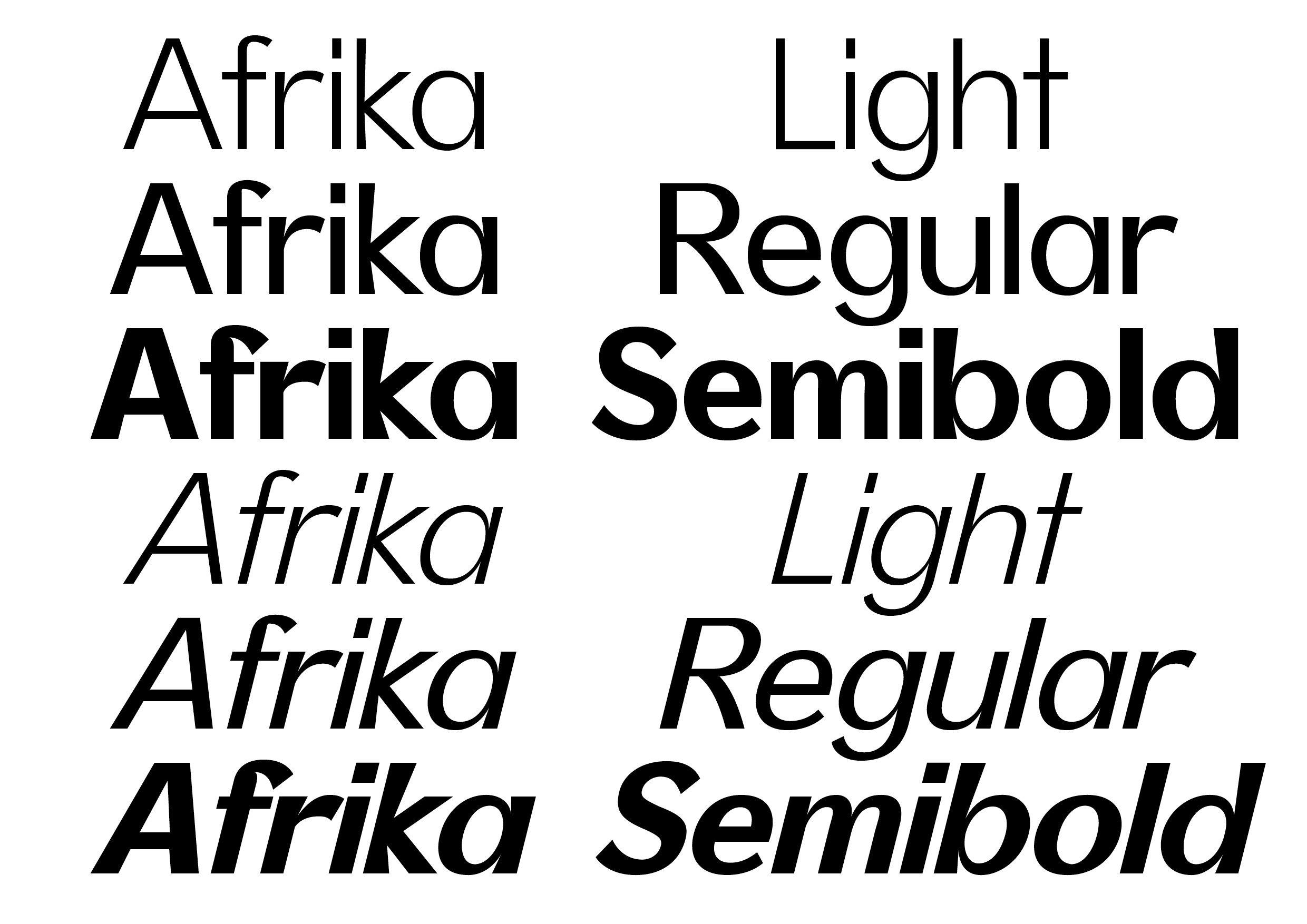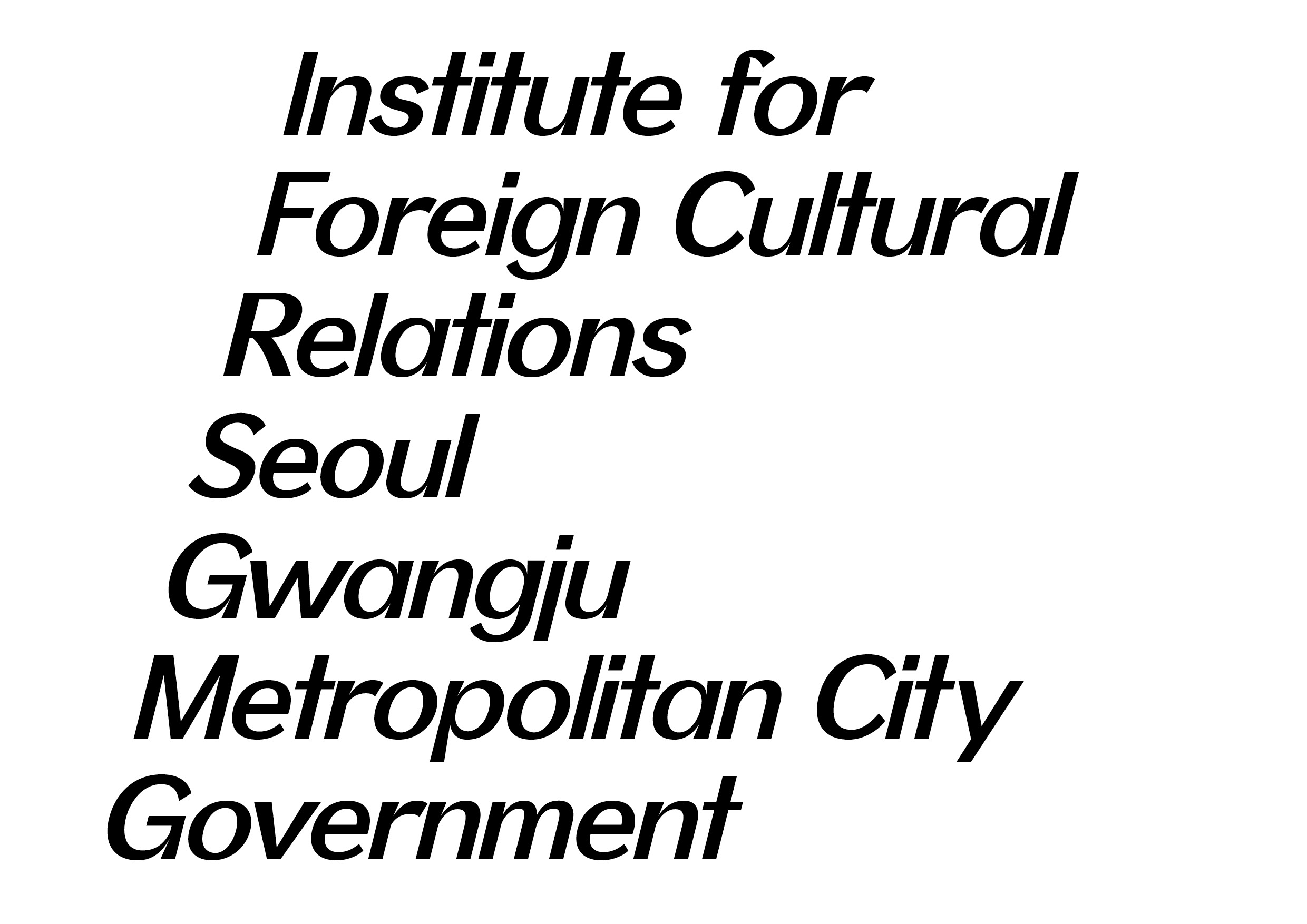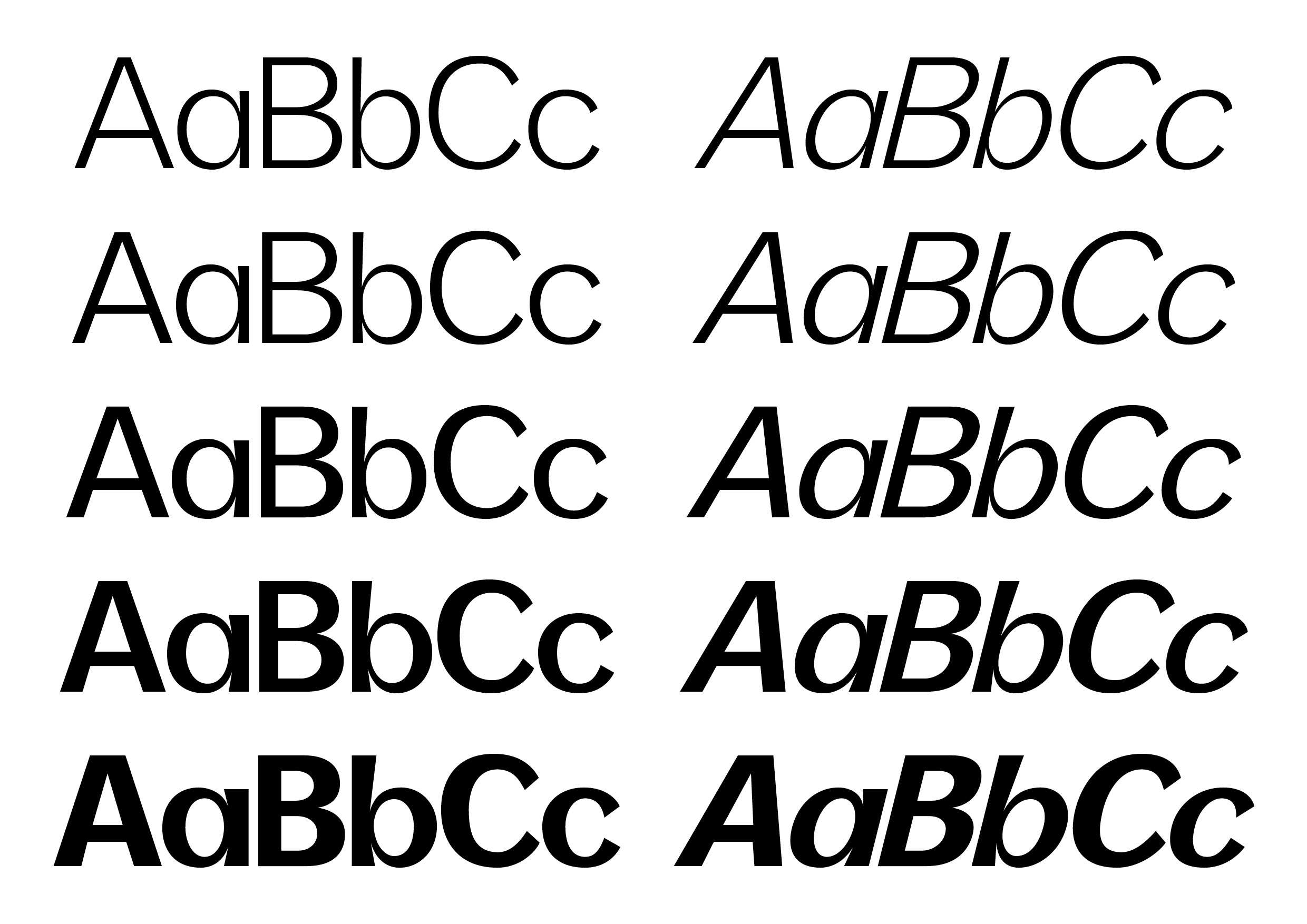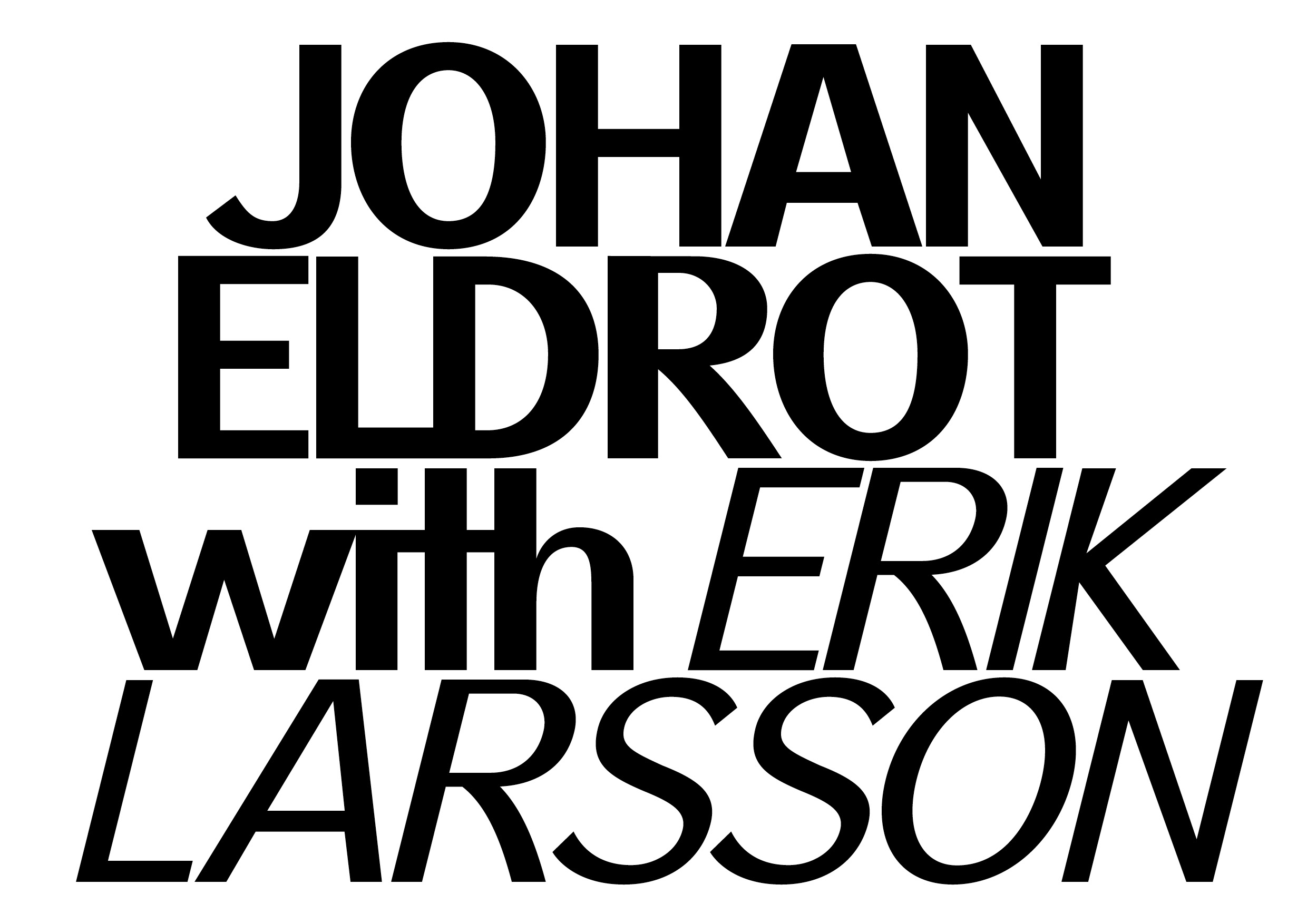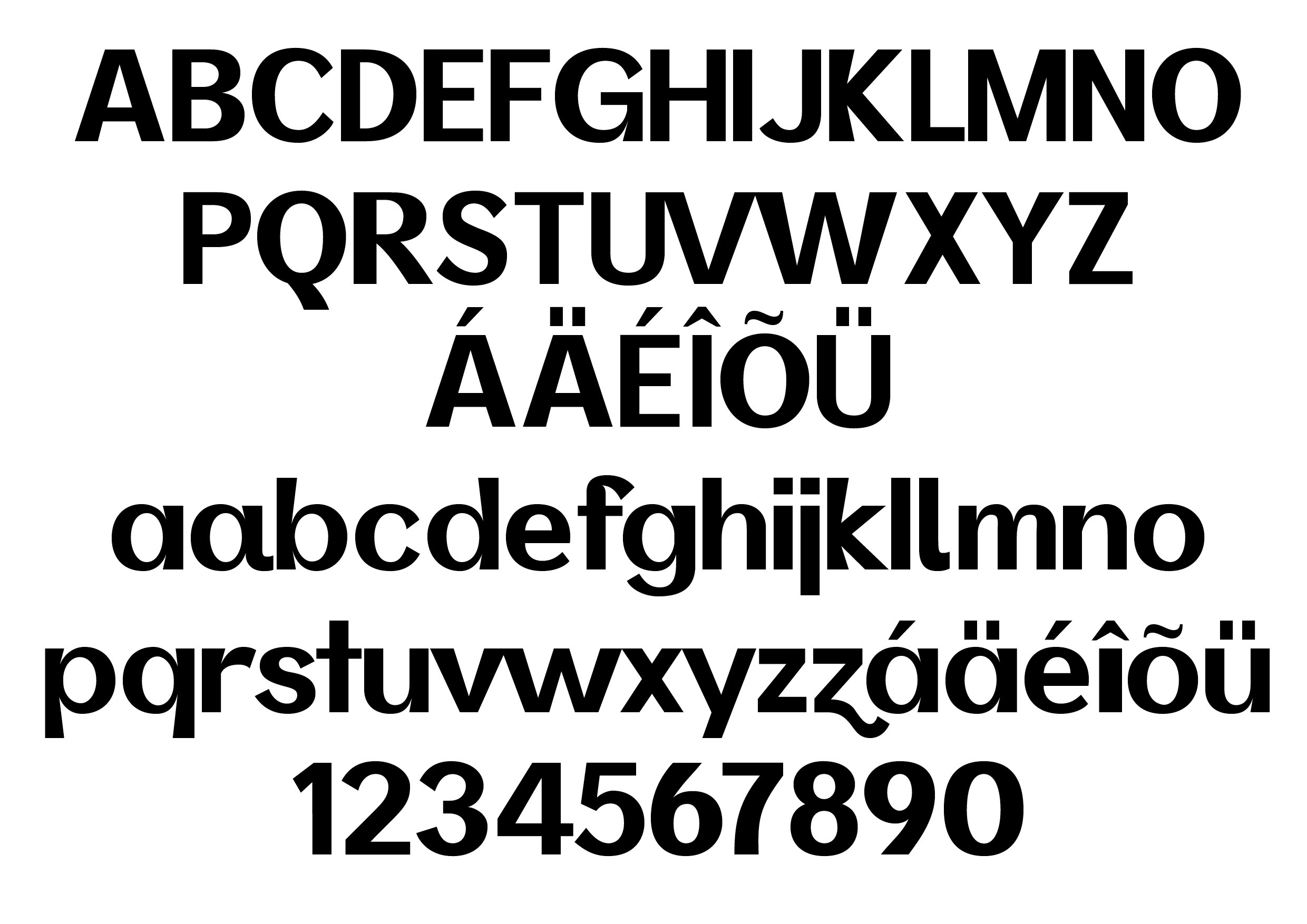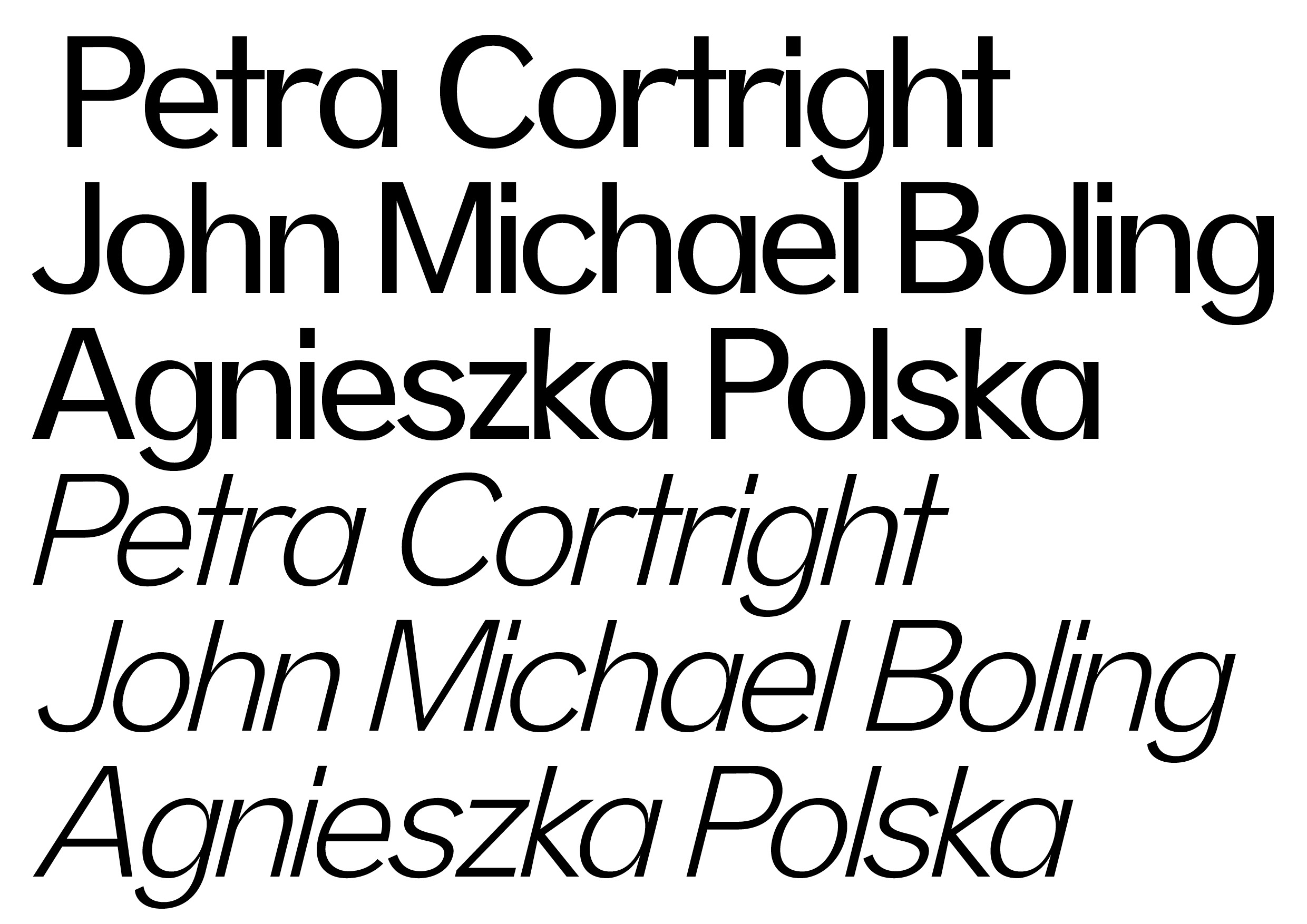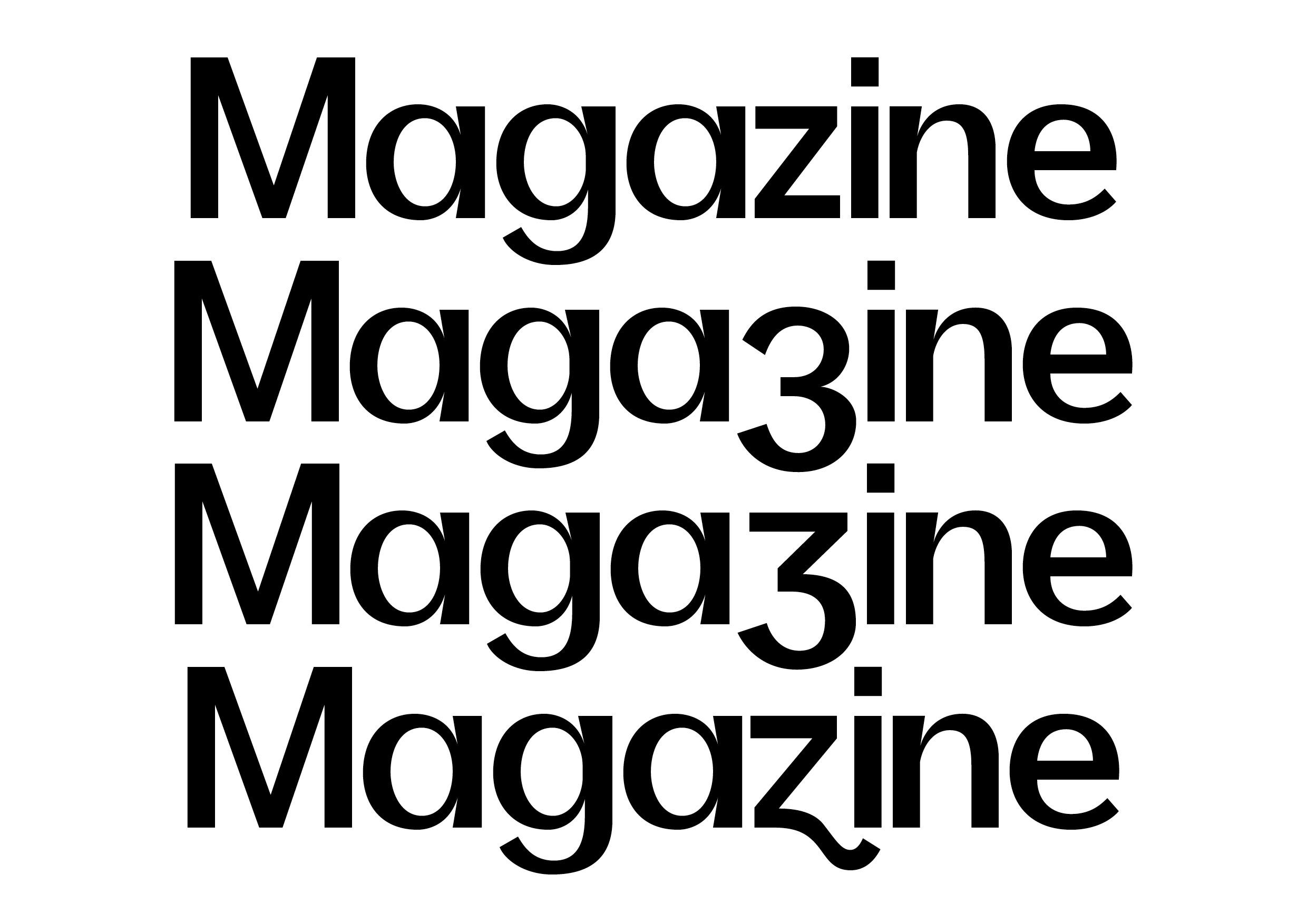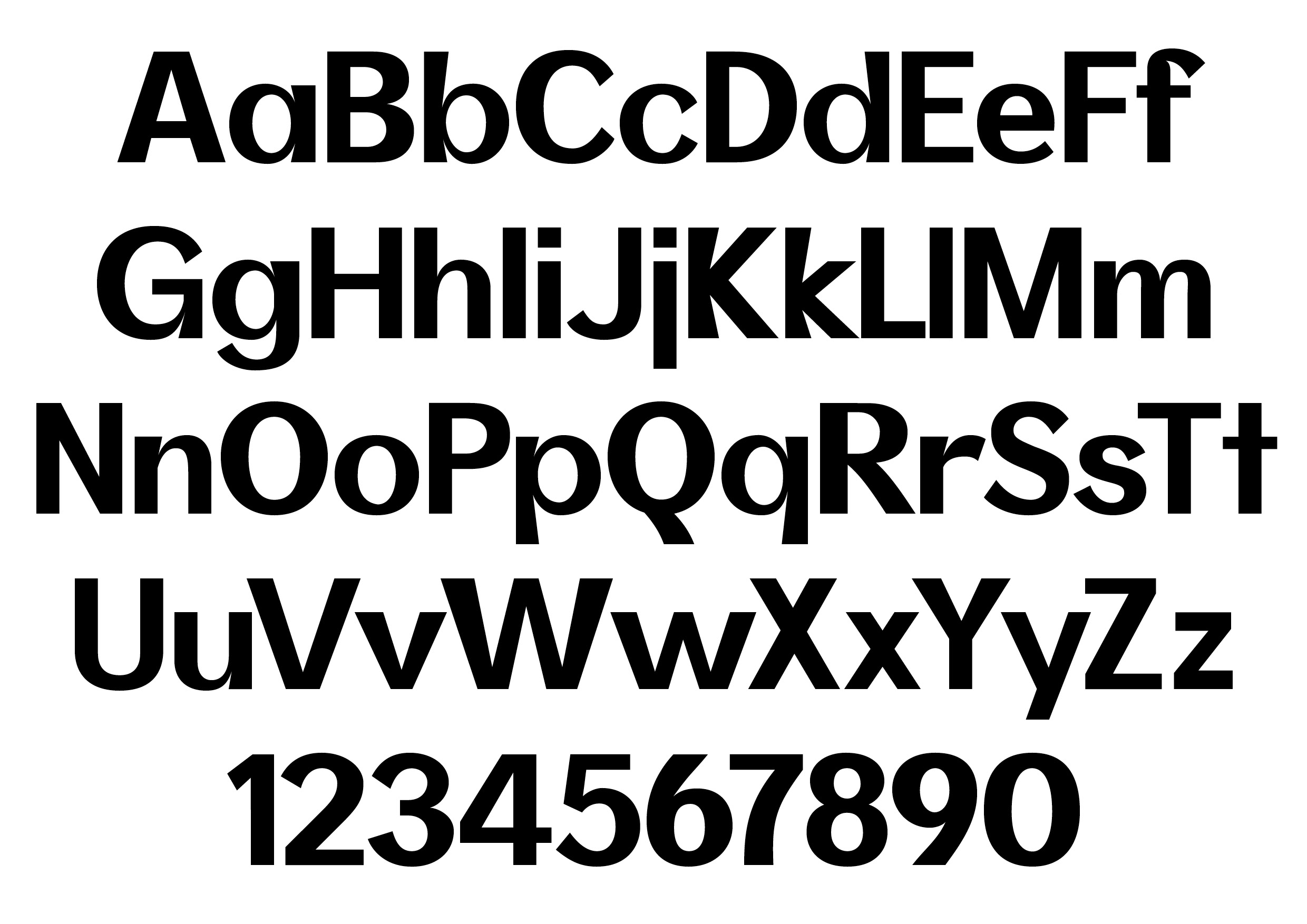
Afrika
Sometimes you have to look somewhere else to see something new. Afrika began with African art and its influence on early 20th century modernism. Artists like Picasso and Matisse encountered forms that challenged the European traditions they knew and changed the way they made work. That collision became a starting point for Afrika. Its letters have brush-like strokes and sculptural shapes that feel drawn as much as designed. There is warmth in them but also something unexpected. Set a single word in Afrika and it can start to feel like an image. A title. A name. A poster. Something you want to look at before you even read it.
Sans Serif
Afrika Sans specimen